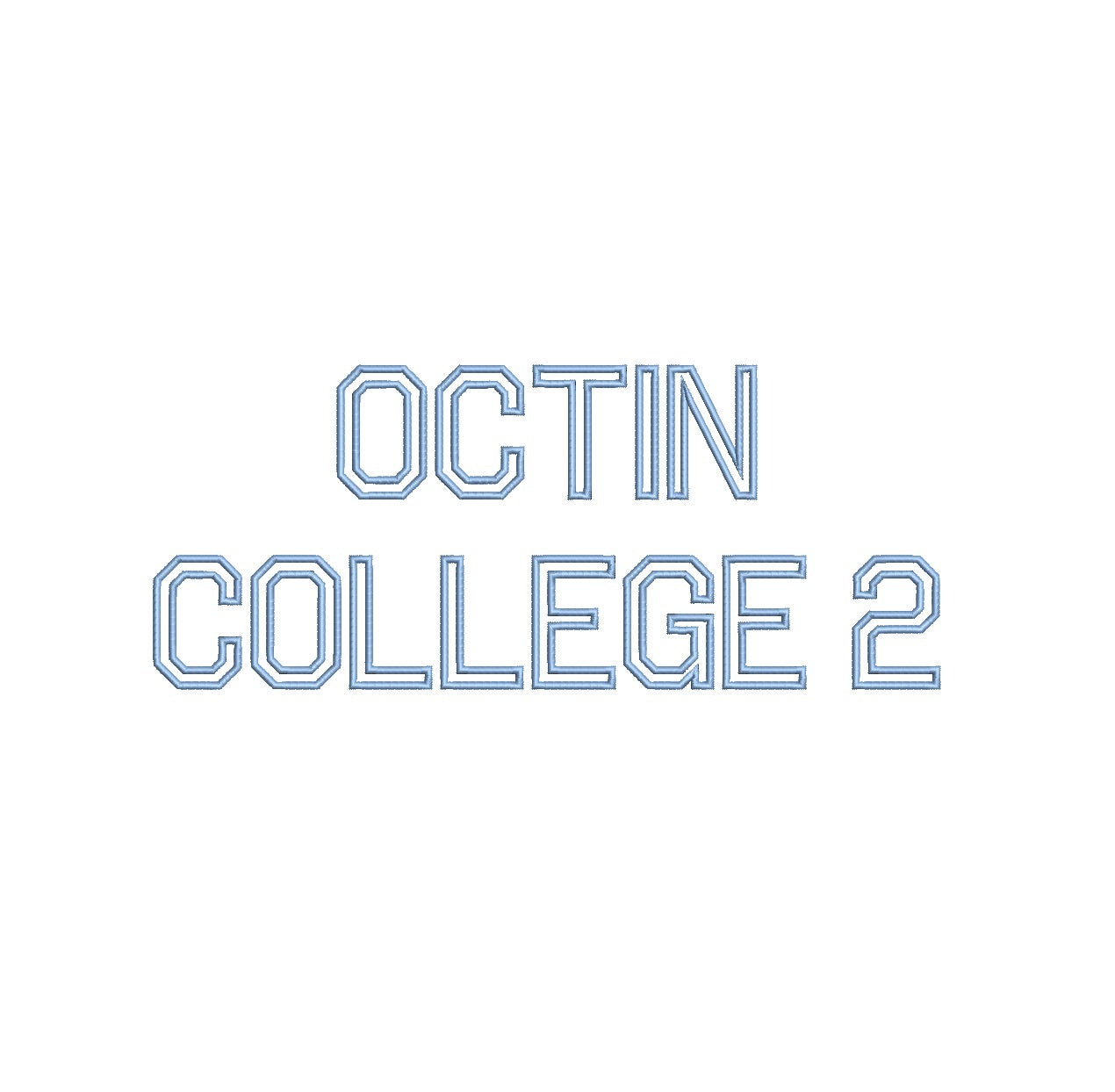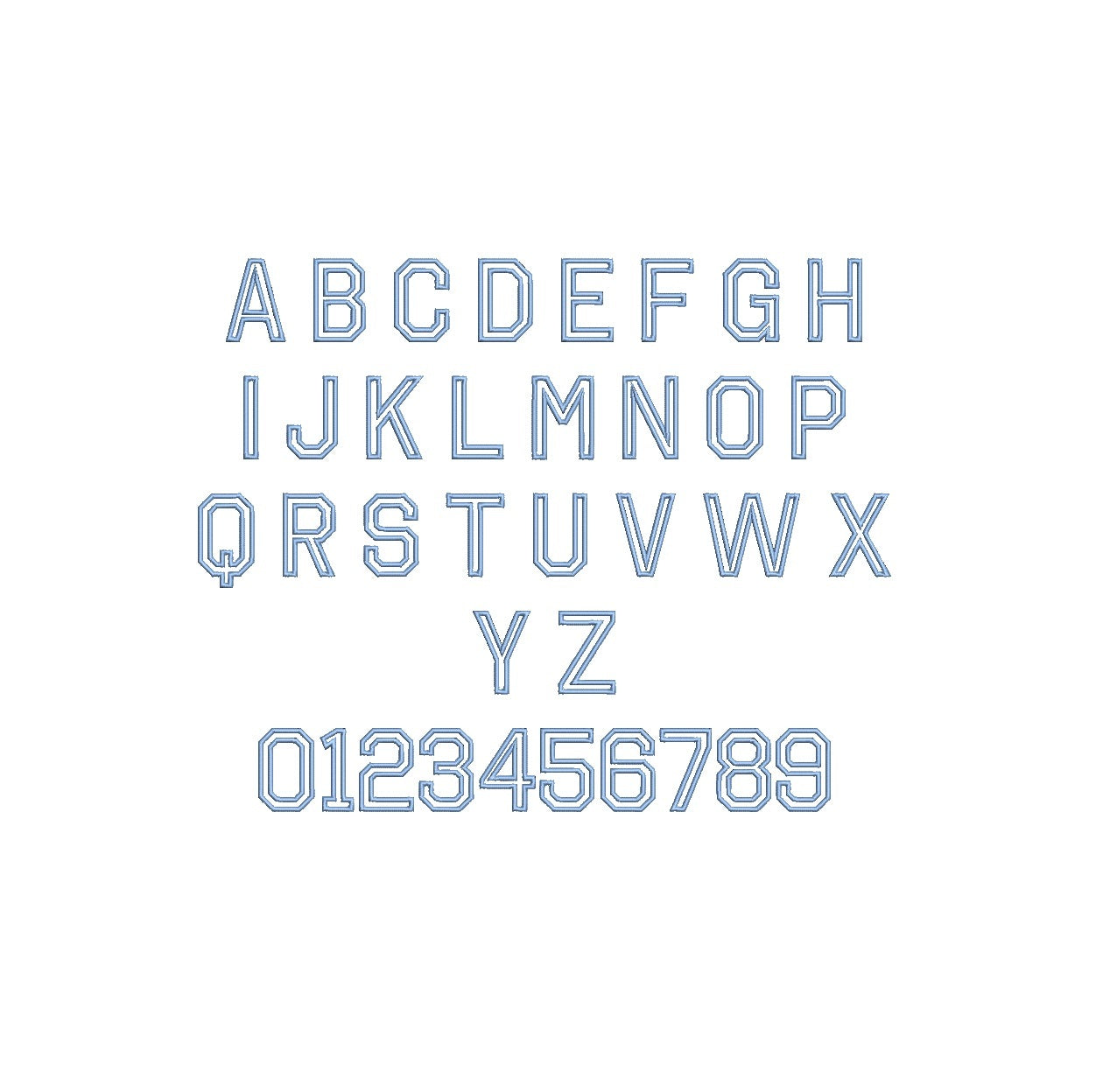
Octin College 2 Outline ESA font
Elevate your embroidery creativity with the Octin College 2 Outline ESA font, seamlessly compatible with Wilcom Studio e4.5.6 and Hatch 3 versions and beyond. This versatile typeface offers a modern, edgy aesthetic, perfect for bold logos, athletic wear, and collegiate-themed designs. Its crisp, outlined style ensures legibility and adds a dynamic flair to your projects. With effortless integration into your preferred embroidery software, editing is a breeze, allowing you to achieve impeccable results. Unlock the potential for standout designs that resonate with energy and style. Elevate your digitizing game with the Octin College 2 Outline ESA font and make your embroidery truly remarkable.